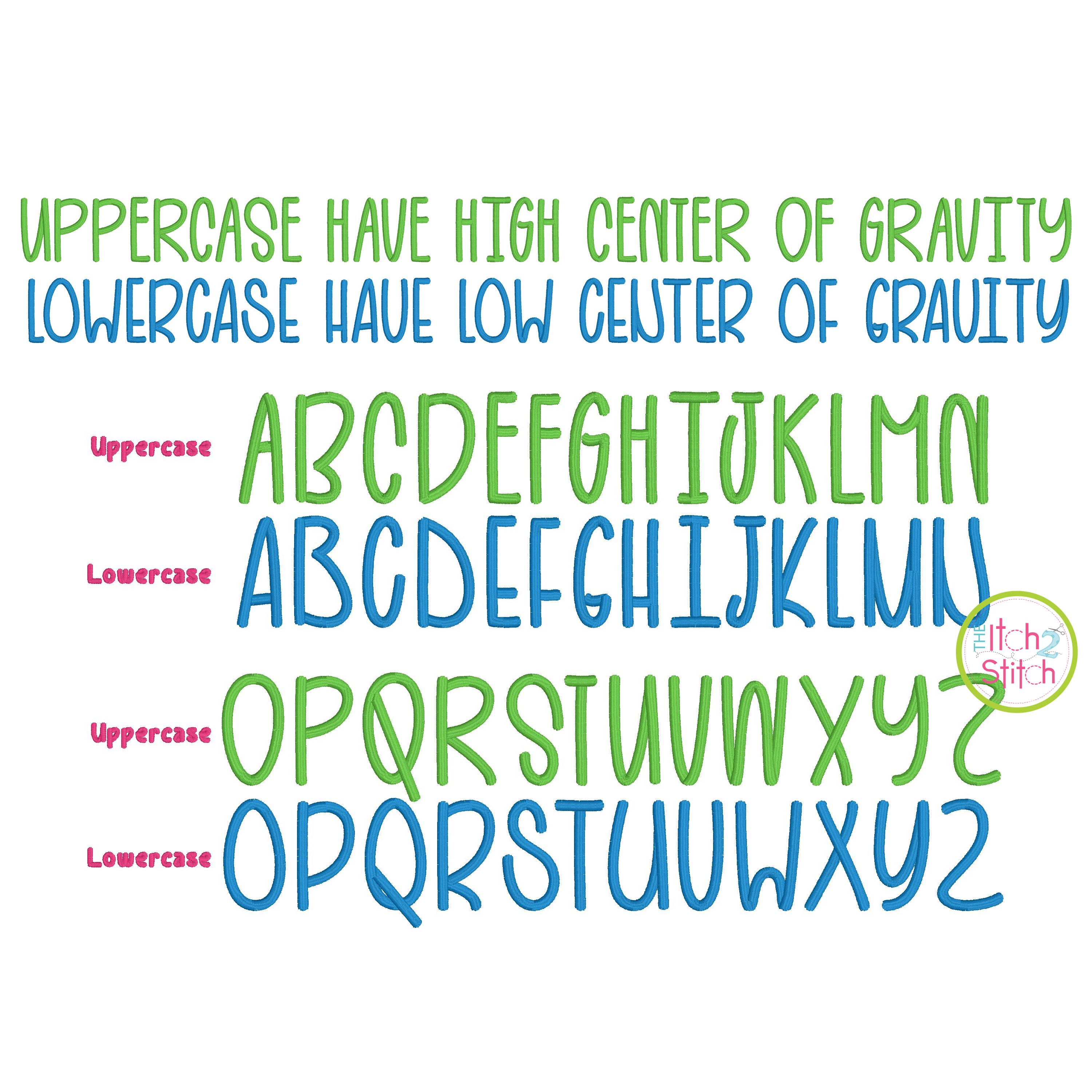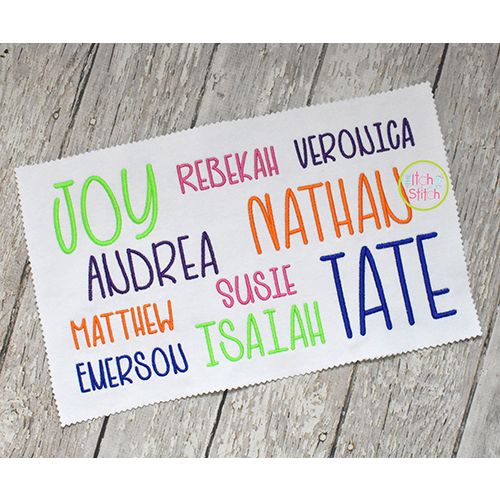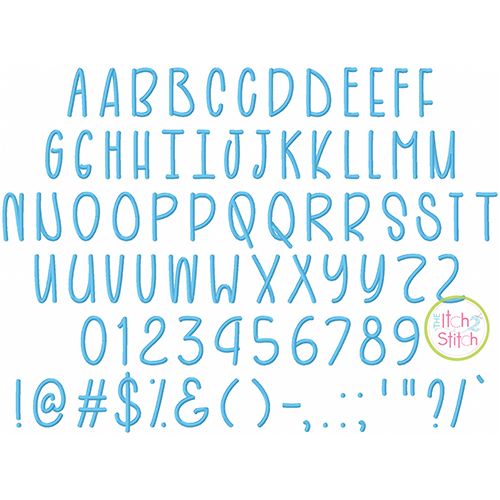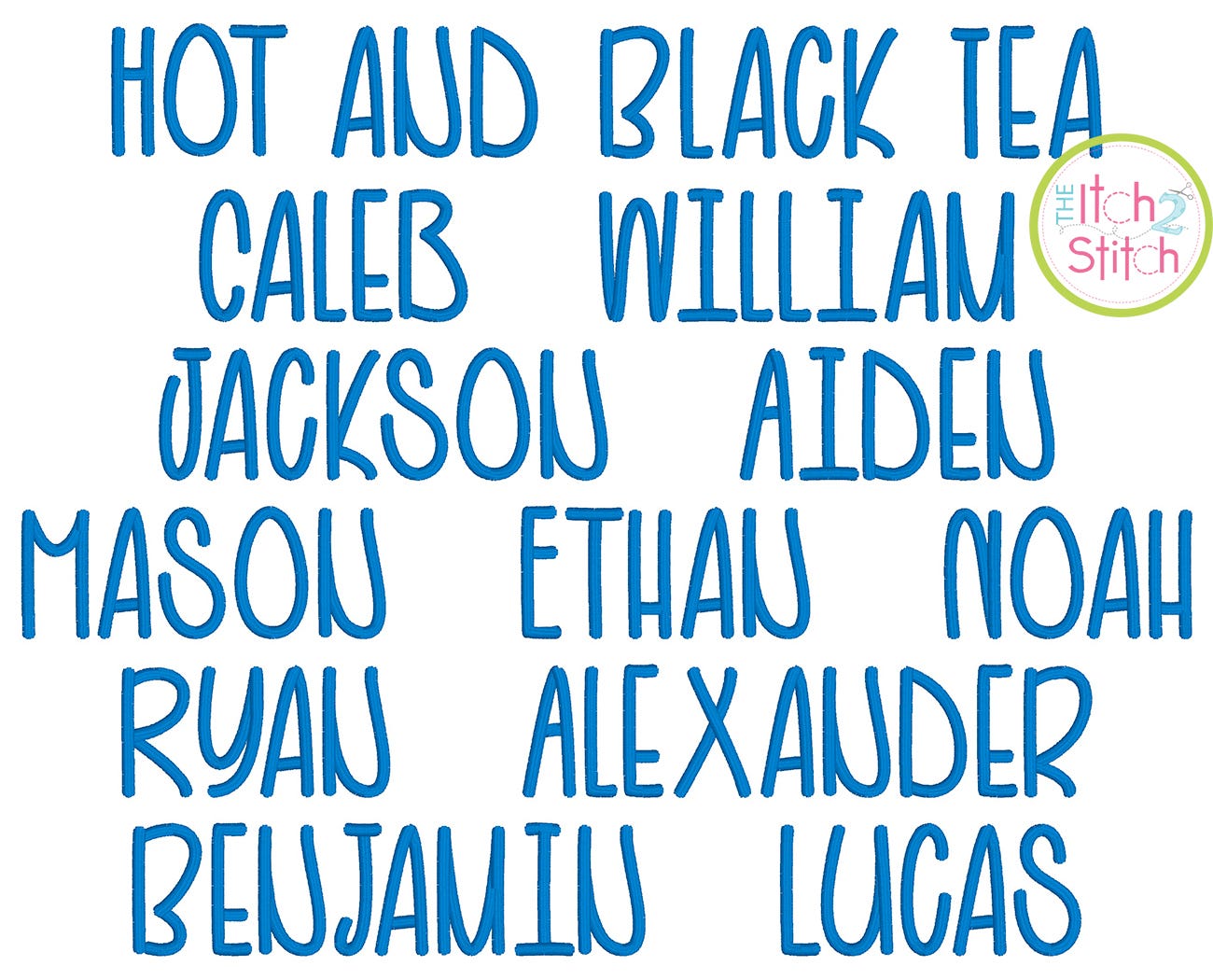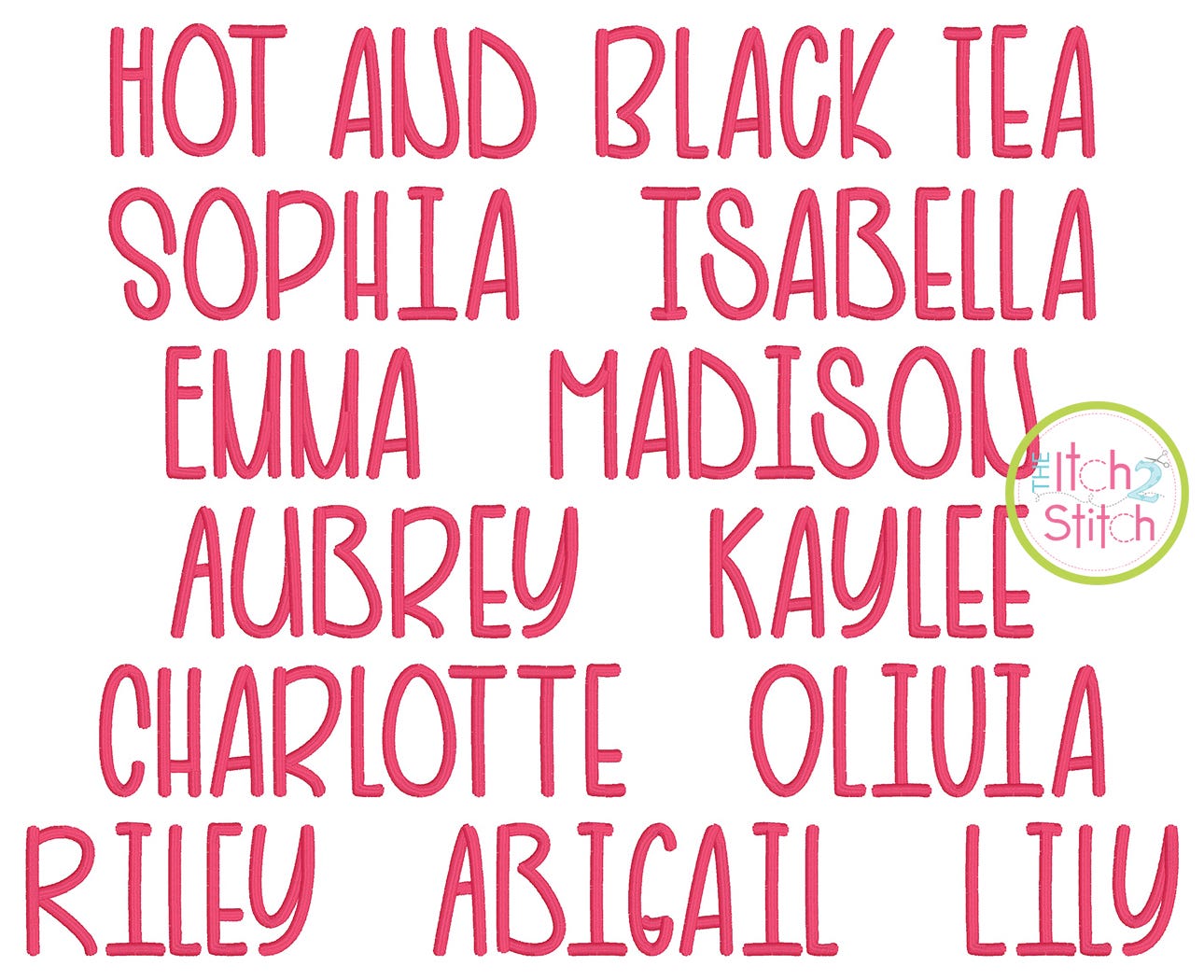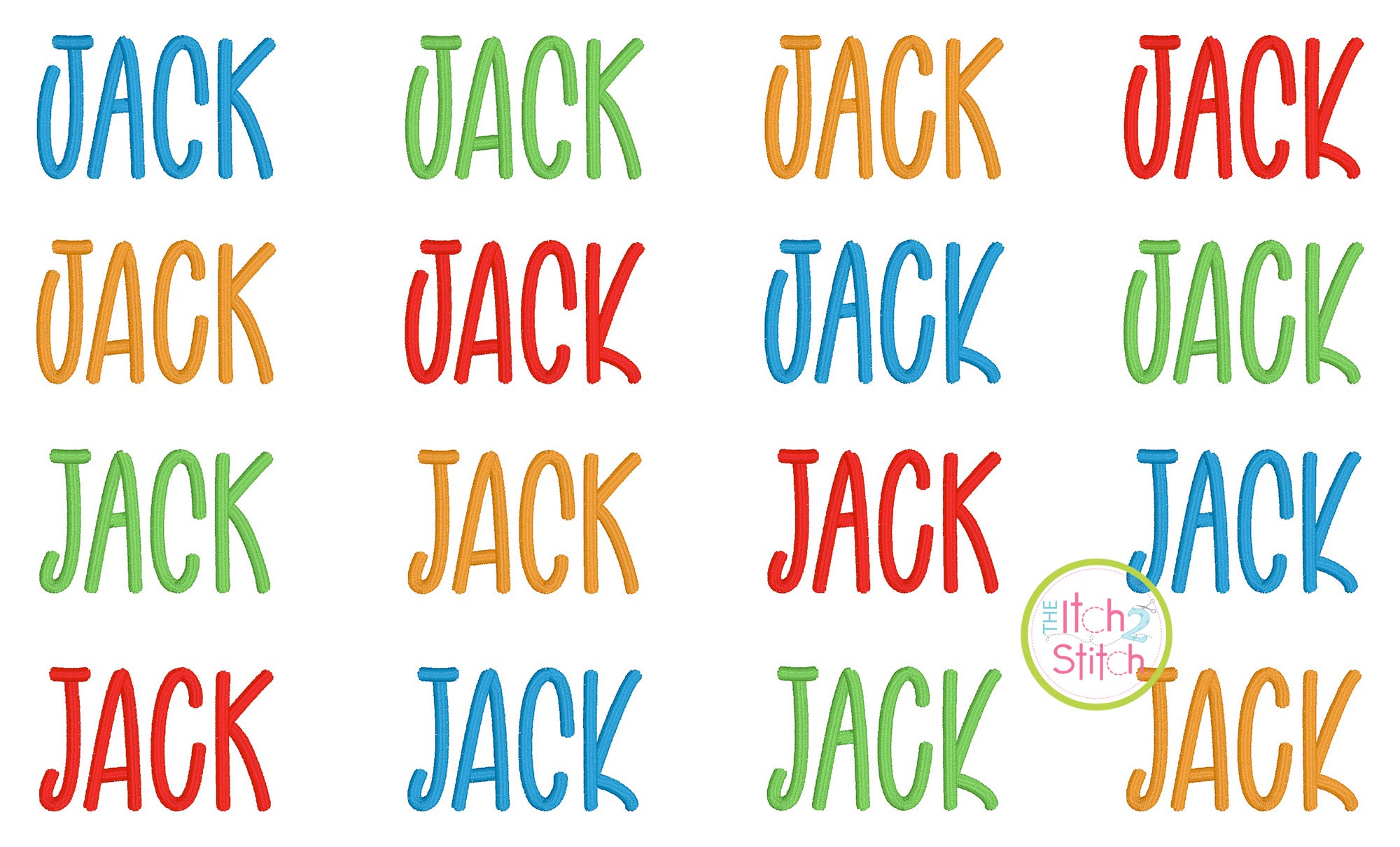
Hot and Black Tea Satin Stitch Embroidery Font
This is an all-caps unicase font with two styles for each letter. The "capital" letters have a high center of gravity and the "lowercase" letters have a low center, as pictured. You can mix and match the two styles for a unique and fun look. You will receive all Aa-Zz letters, numbers and partial punctuation (79 files) in seven sizes. All files fit in a 4x4 hoop (except the 3.5" and 4" Qs, $ and &).